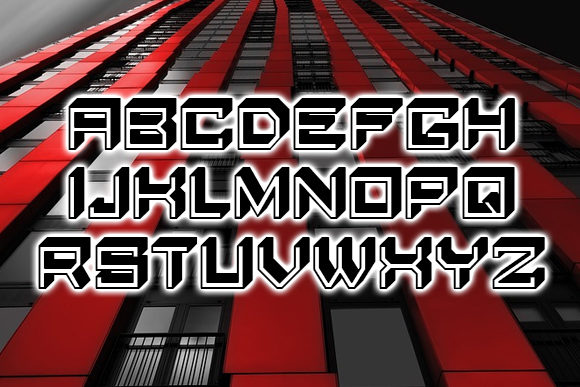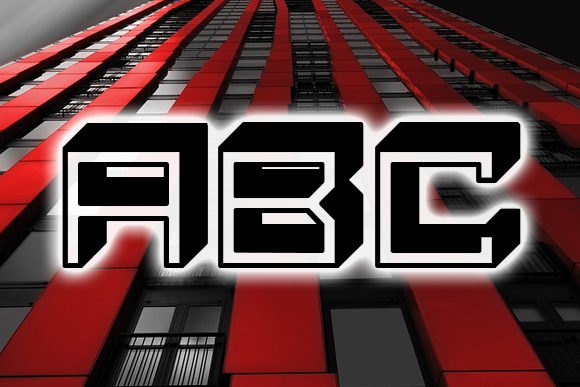
Introducing Blocky Letters Font: Elevate Your Designs with 3D Display Flair
Are you tired of using the same old fonts in your designs? Look no further! Blocky Letters Font is an awesome 3D display font that’s sure to take your creative projects to the next level. With its unique, blocky style, this font is perfect for designers, crafters, and anyone looking to add a touch of personality to their work.
What is Blocky Letters Font?
Blocky Letters Font is a stunning 3D display font that’s designed to make a statement. Its blocky, three-dimensional letters are perfect for creating eye-catching headlines, titles, and captions that will grab attention and leave a lasting impression. Whether you’re working on a logo, brochure, or social media post, this font is sure to add a touch of excitement and energy to your design.
Key Features of Blocky Letters Font
- Unique 3D Design: Blocky Letters Font features a one-of-a-kind 3D design that’s sure to stand out in any design.
- Endless Variations: With Blocky Letters Font, you can experiment with endless variations to create a look that’s all your own.
- High-Quality Design: Blocky Letters Font is designed with high-quality graphics, ensuring that your designs look professional and polished.
Blocky Letters Font is perfect for designers and crafters who want to add a touch of personality to their work. Whether you’re creating:
- Logos and Branding: Use Blocky Letters Font to create a bold, eye-catching logo that will help your brand stand out.
- Social Media Graphics: Add a touch of excitement to your social media posts with Blocky Letters Font.
- Brochures and Flyers: Use Blocky Letters Font to create attention-grabbing headlines and titles that will draw readers in.
- Craft Projects: Add a personal touch to your craft projects, such as handmade cards, gift tags, and scrapbook pages.
Tips and Tricks for Getting the Most out of Blocky Letters Font
Here are a few tips and tricks for getting the most out of Blocky Letters Font:
- Experiment with Different Sizes: Try using Blocky Letters Font in different sizes to create visual interest and hierarchy in your design.
- Play with Color: Experiment with different colors and gradients to add depth and dimension to your design.
- Combine with Other Fonts: Try pairing Blocky Letters Font with other fonts to create a unique and interesting contrast.
Blocky Letters Font is an awesome 3D display font that’s sure to elevate your designs and add a touch of personality to your work. With its unique, blocky style and endless variations, this font is perfect for designers, crafters, and anyone looking to create eye-catching headlines, titles, and captions. So why wait? Download Blocky Letters Font today and start exploring its endless creative possibilities!